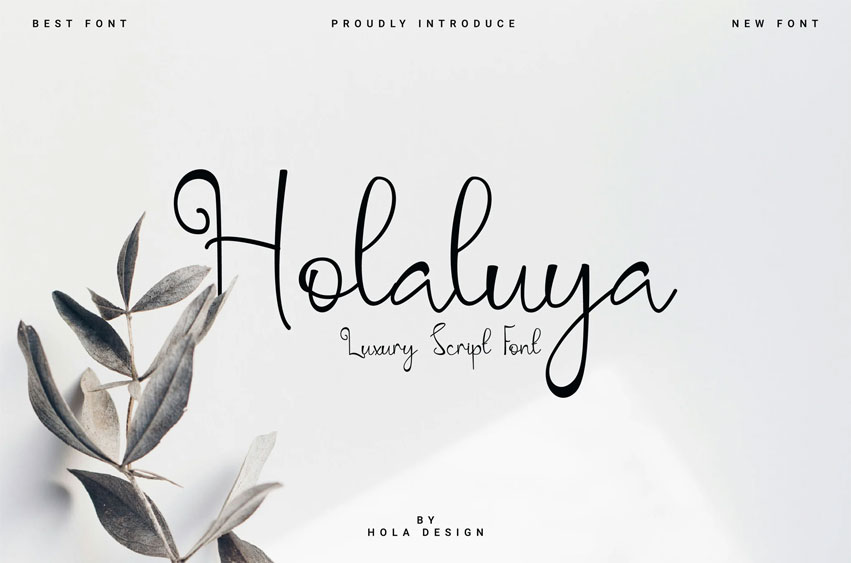
Holaluya Font Luxury Script Font.
Ready to use for your design like labeling, movie sceen, poster, movie title, gigs, album covers, logos, and much more.